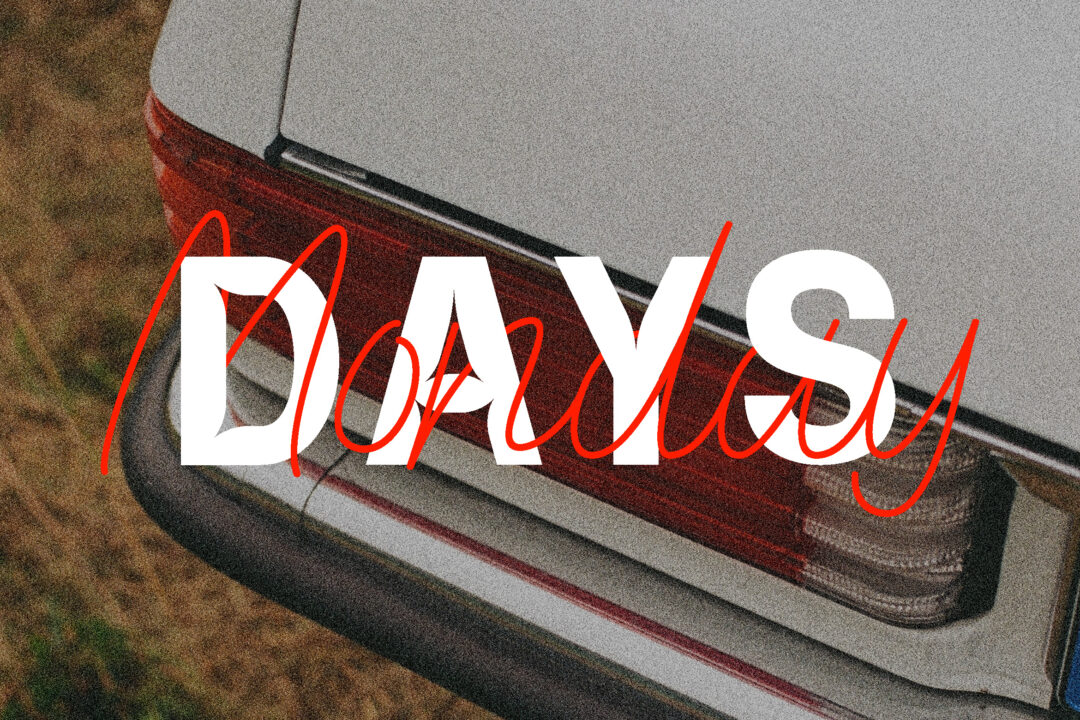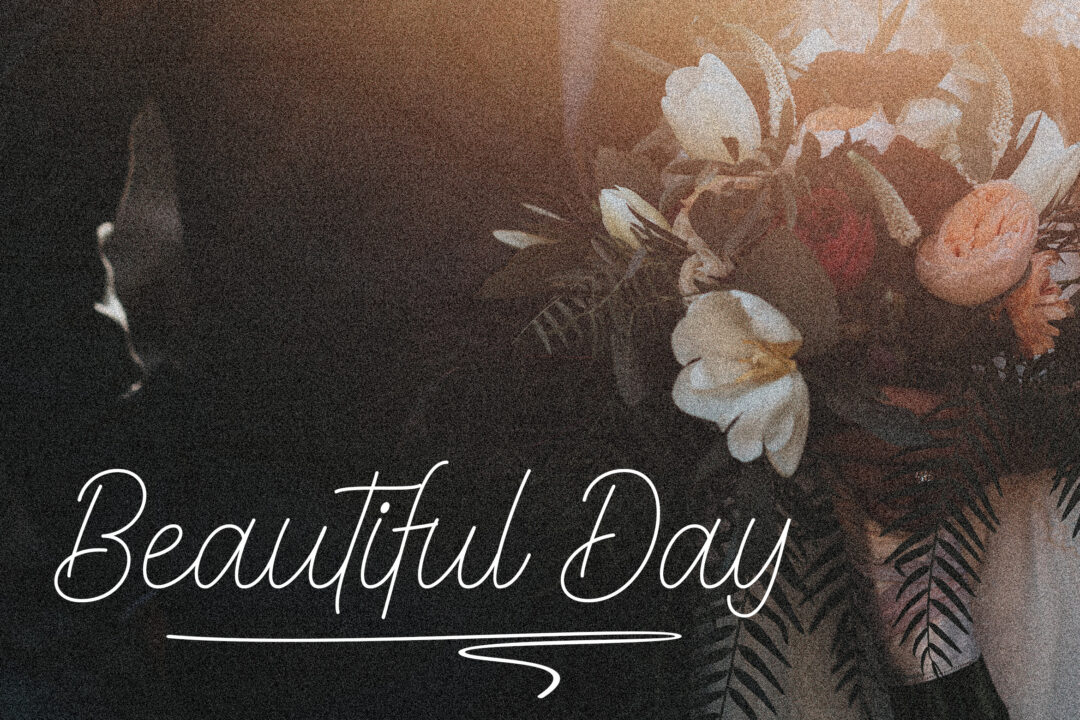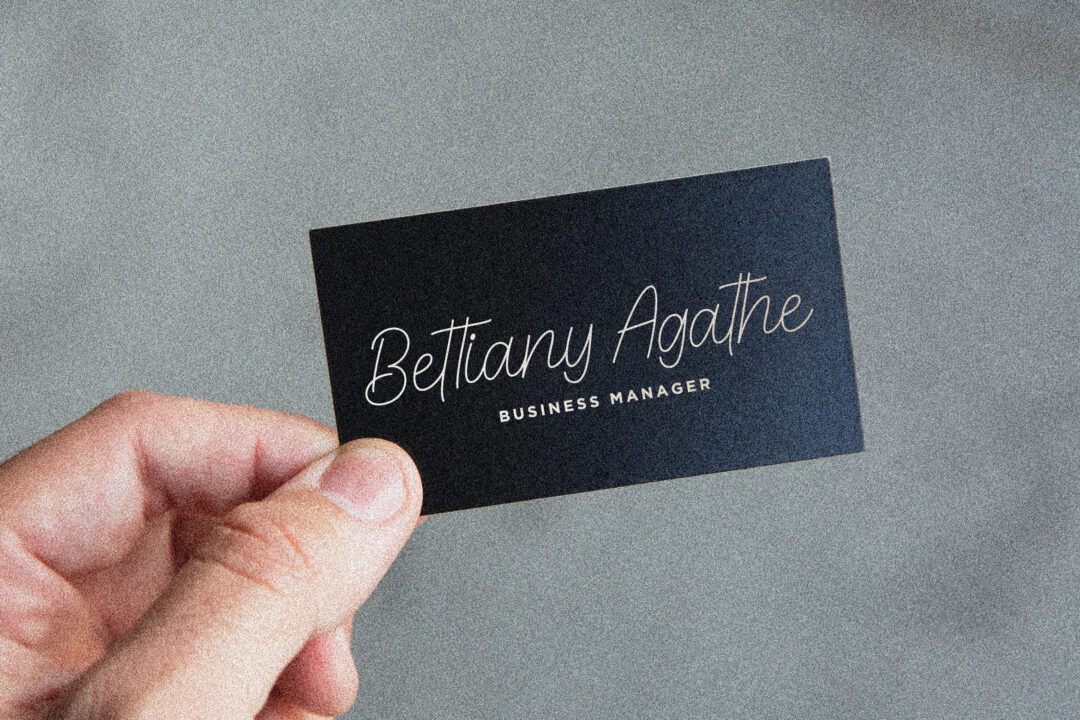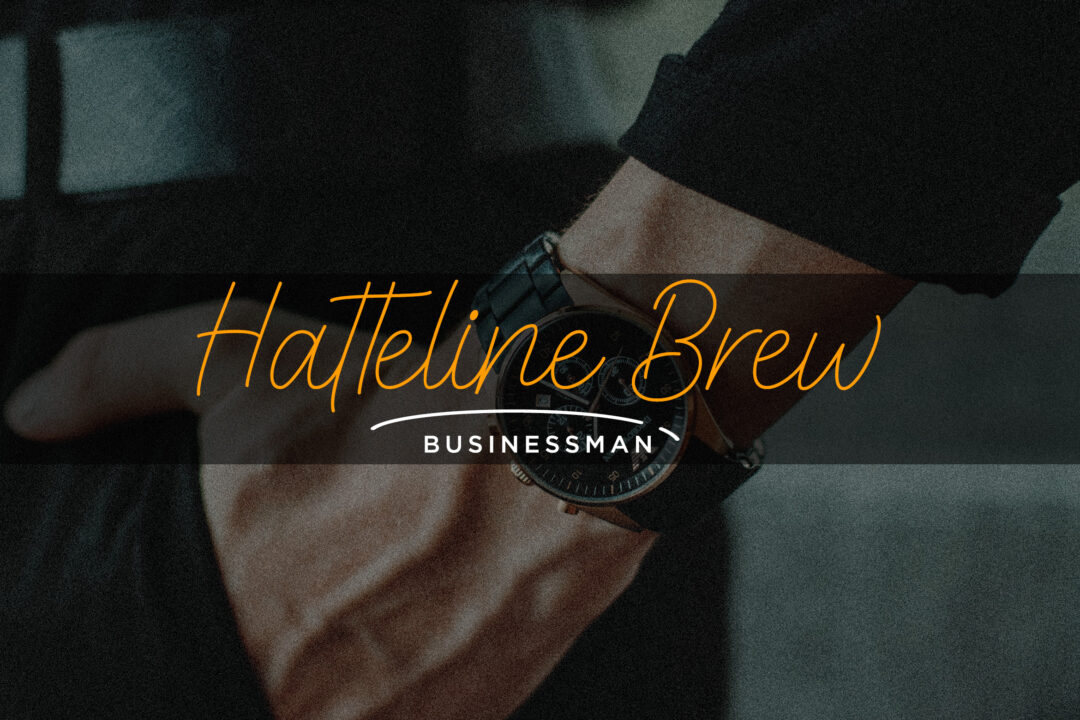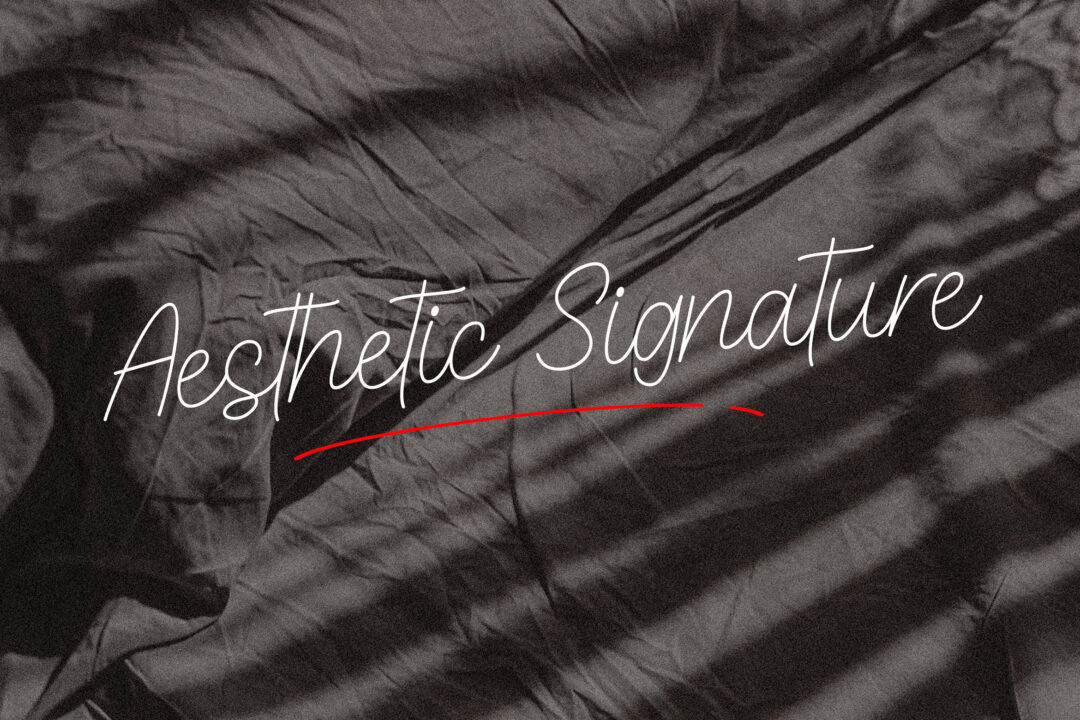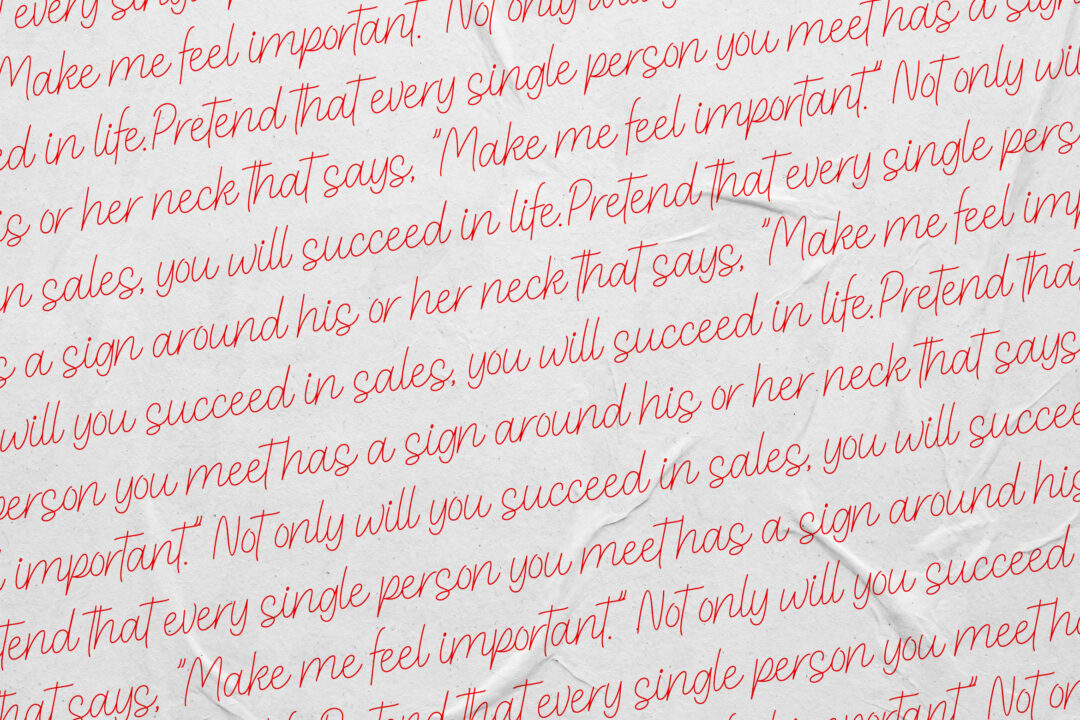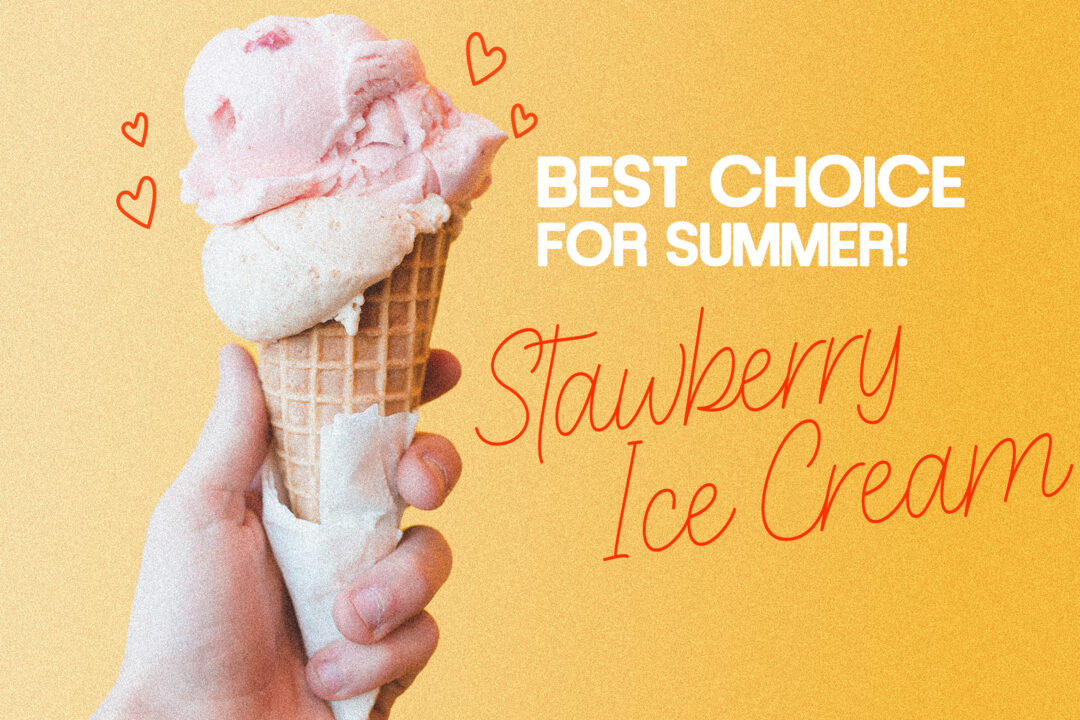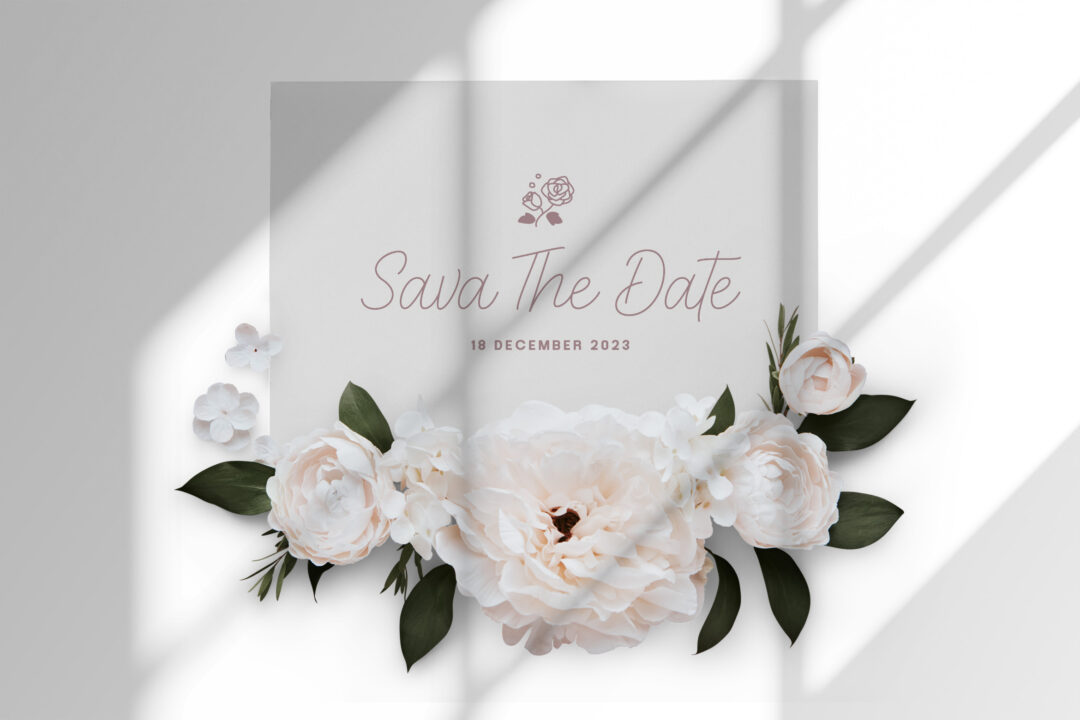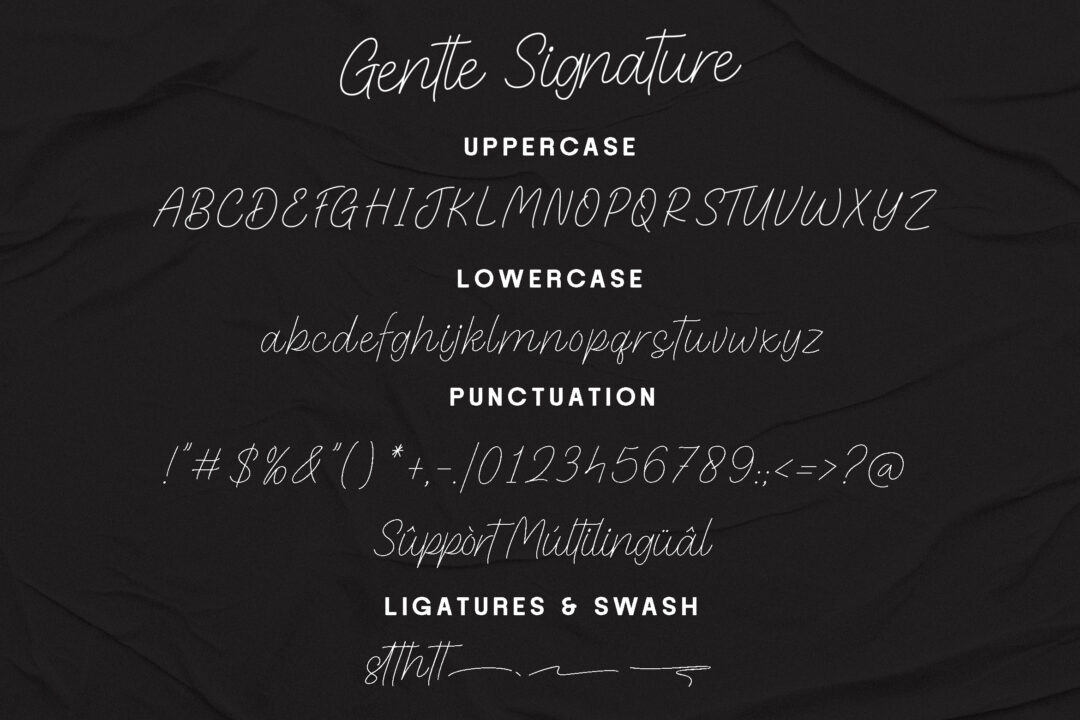
Gentle Signature Font is a beautifully crafted typeface that exudes elegance and sophistication. It is a calligraphic script font that captures the essence of hand-drawn lettering with a touch of grace and charm.
The strokes of Gentle Signature Font are meticulously designed to flow seamlessly, mimicking the fluidity of a handwritten signature. Each letter is carefully crafted with graceful curves and gentle swashes, creating a sense of movement and rhythm. The characters are delicate yet legible, making it perfect for adding a touch of sophistication to invitations, branding, or any design project that requires a personal and elegant touch.
Gentle Signature